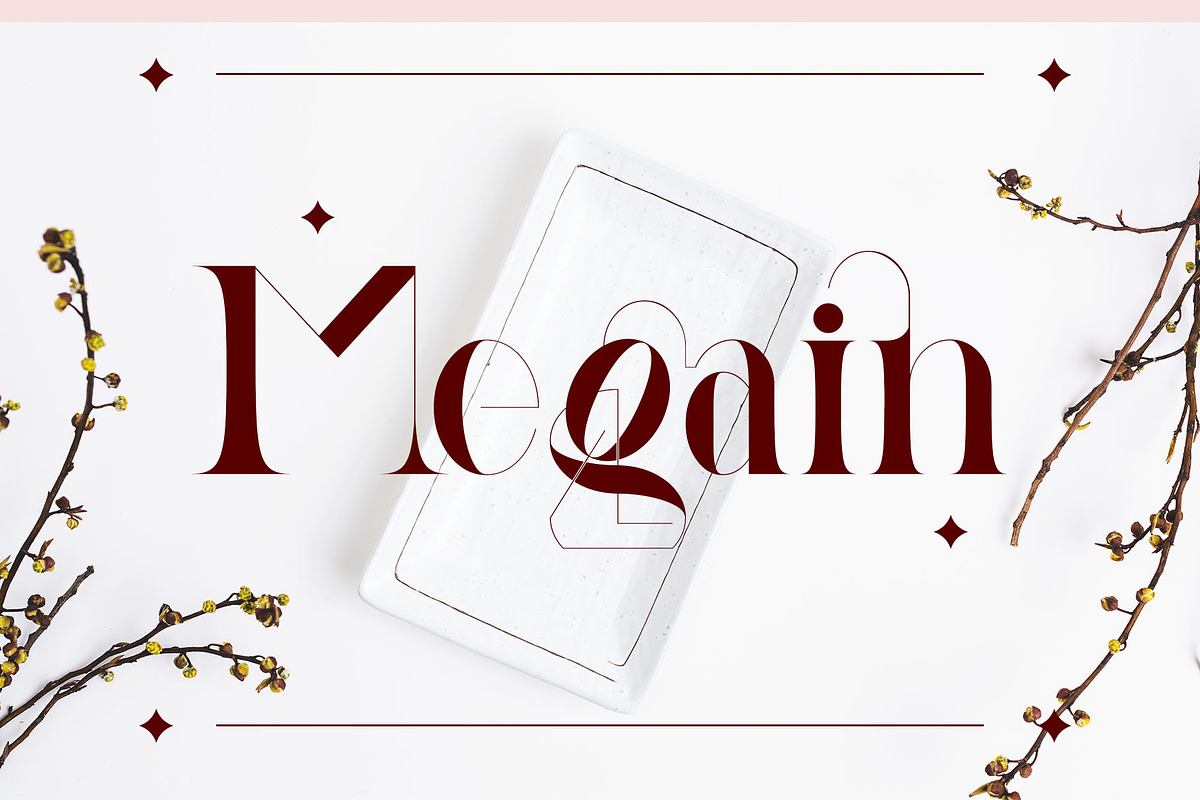
Megain Ligature Serif Typeface Free Download
Please note, to use this font for commercial purposes, you must purchase the full version. Megain is a modern ligature serif typeface that blends classic elegance with a contemporary edge. Perfect for branding, logos, editorial designs, and luxury projects, this font's intricate ligatures and refined letterforms create a sophisticated, timeless appeal. Whether you're working on a high-end fashion brand, a professional logo, or an elegant invitation, Megain brings a stylish, premium touch to your designs. Test it out and enjoy free download access for personal use. Experience the unique style of Megain Ligature Serif Typeface Free Download before purchasing the commercial license. Add a touch of elegance and refinement to your designs with Megain.